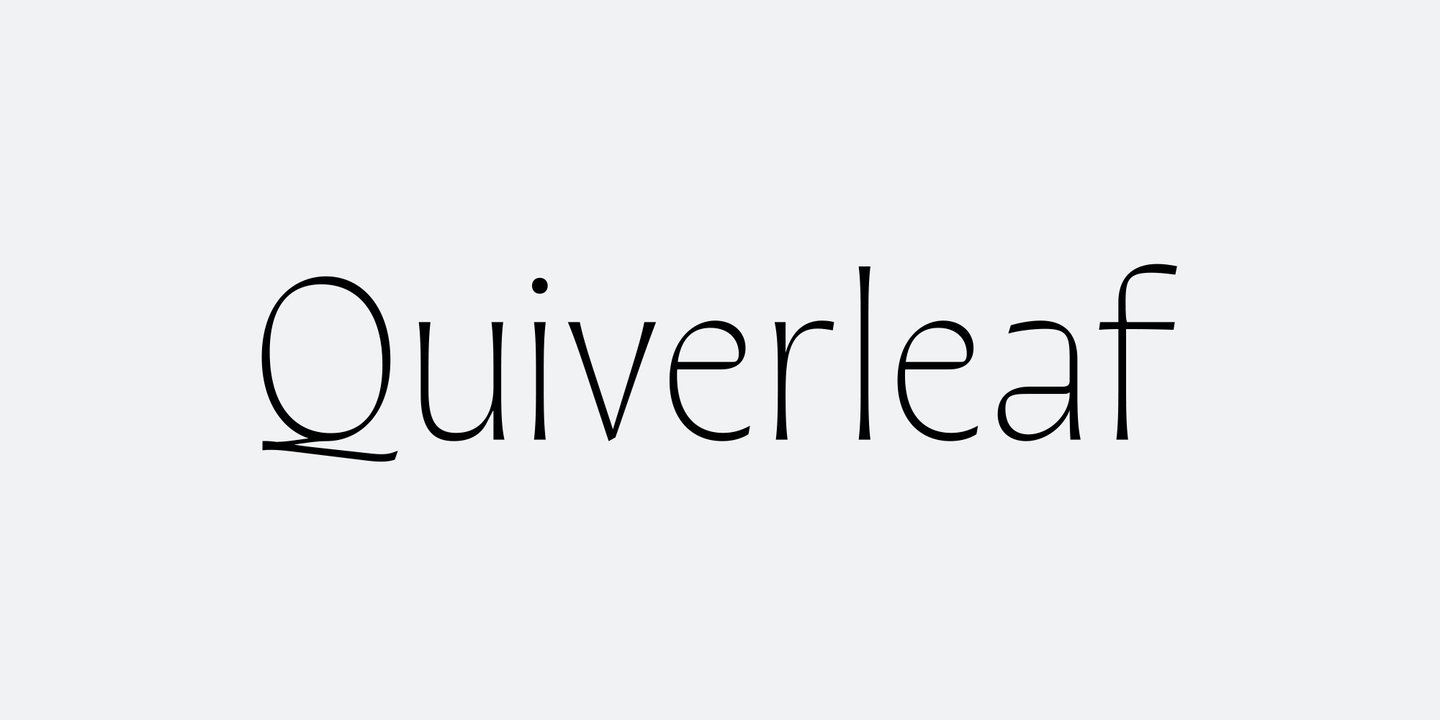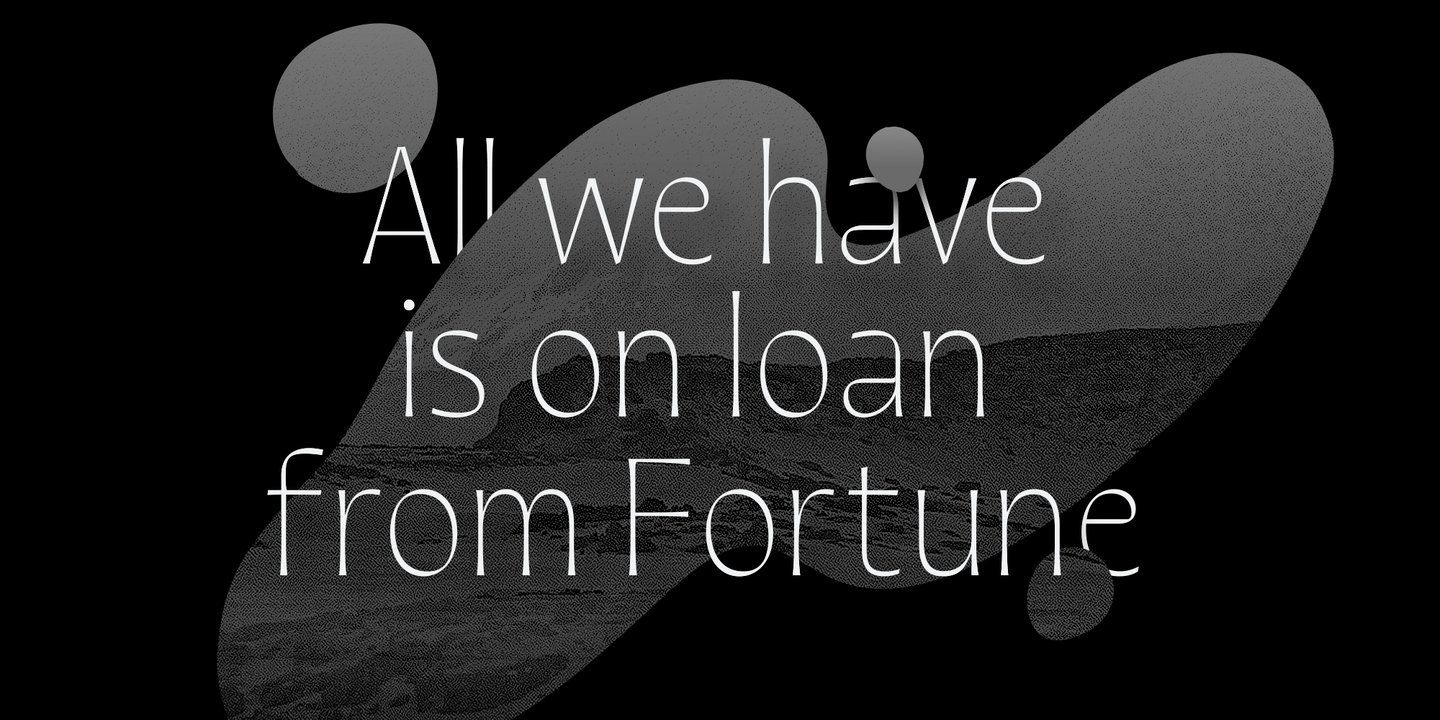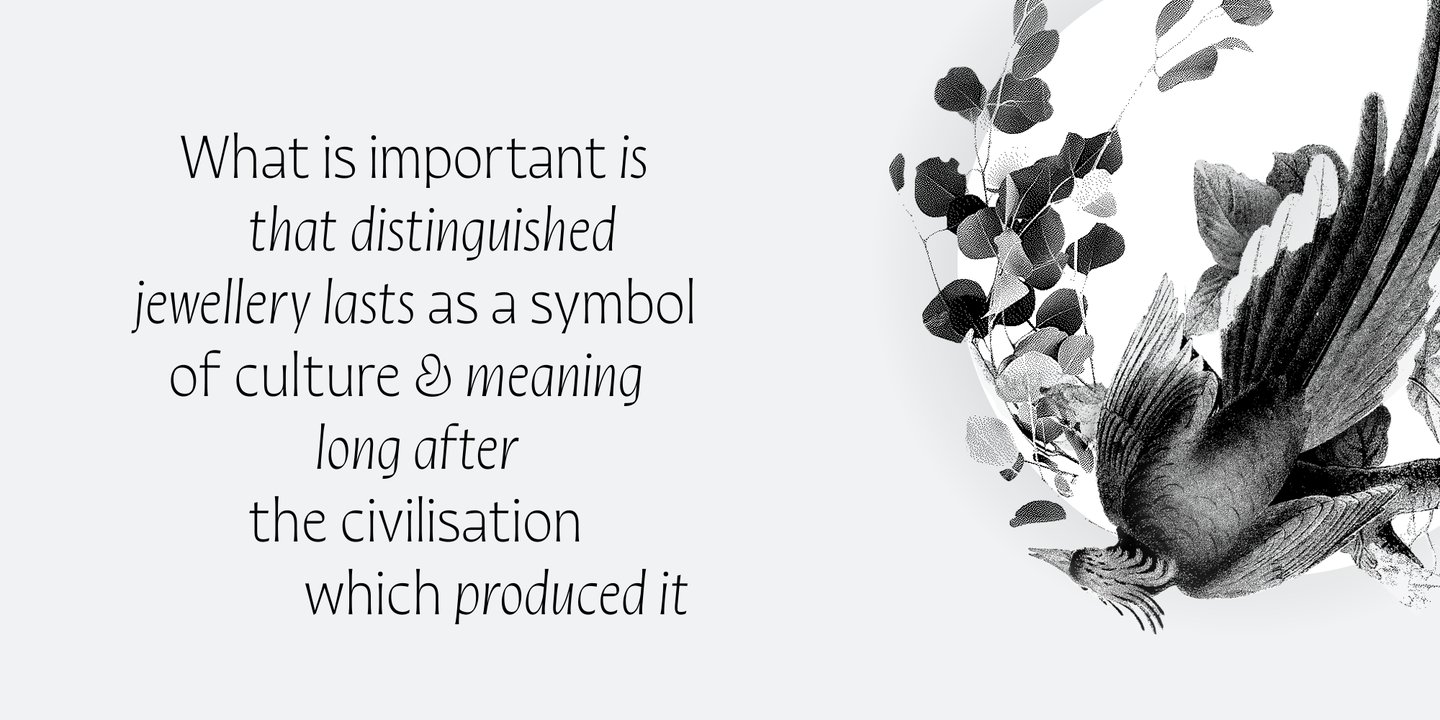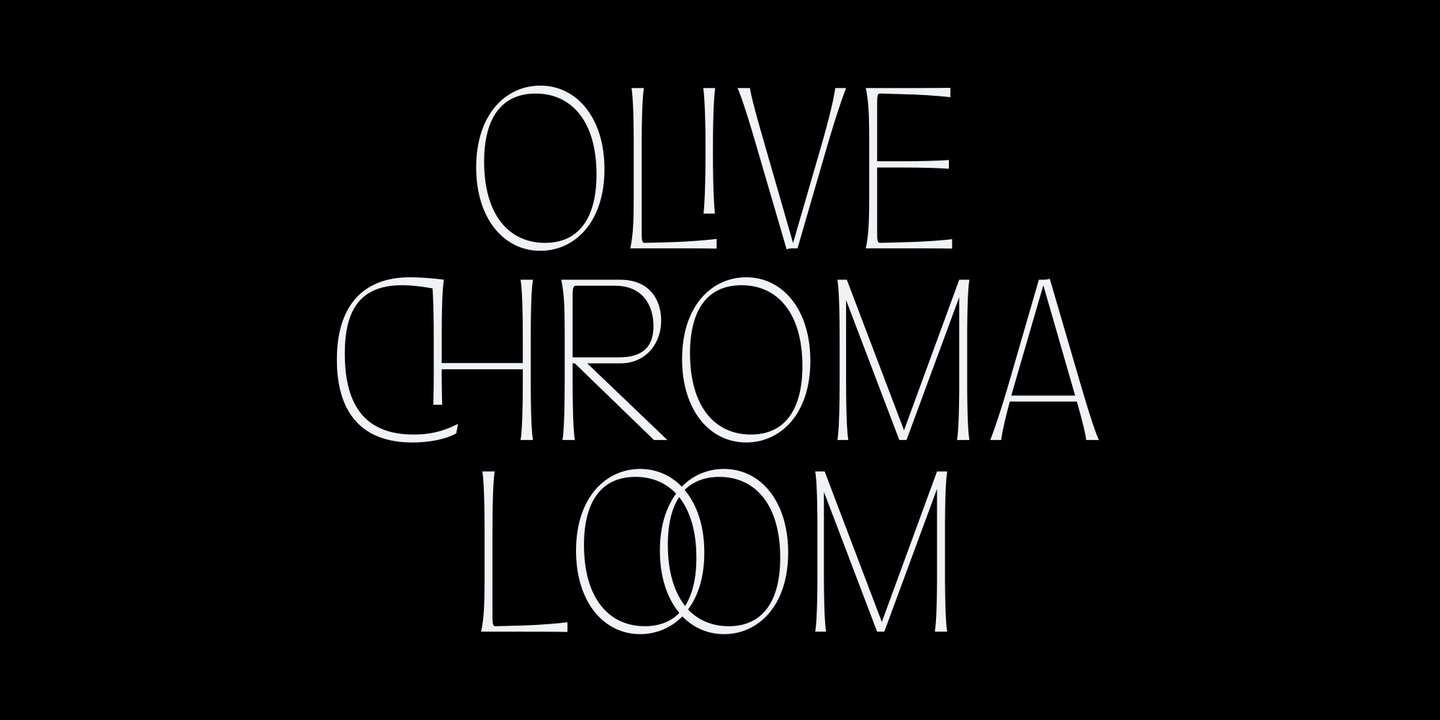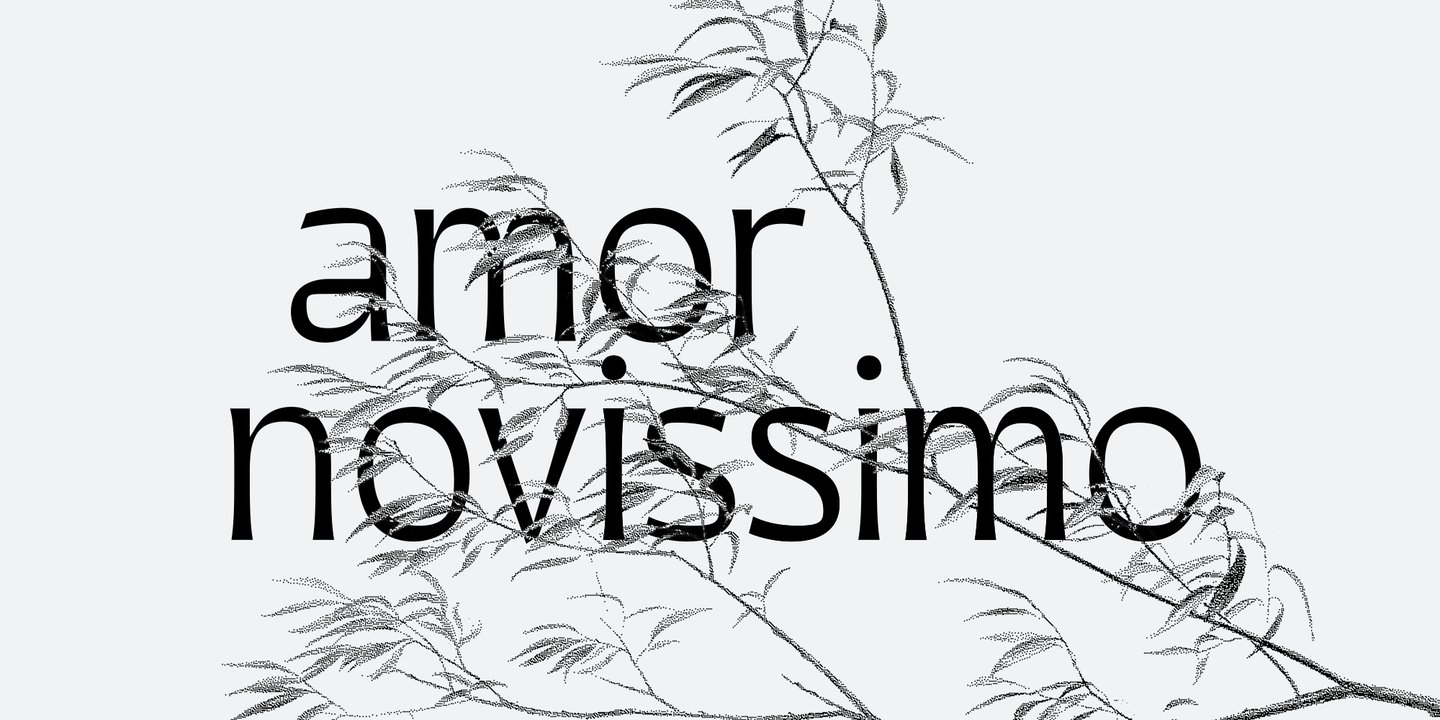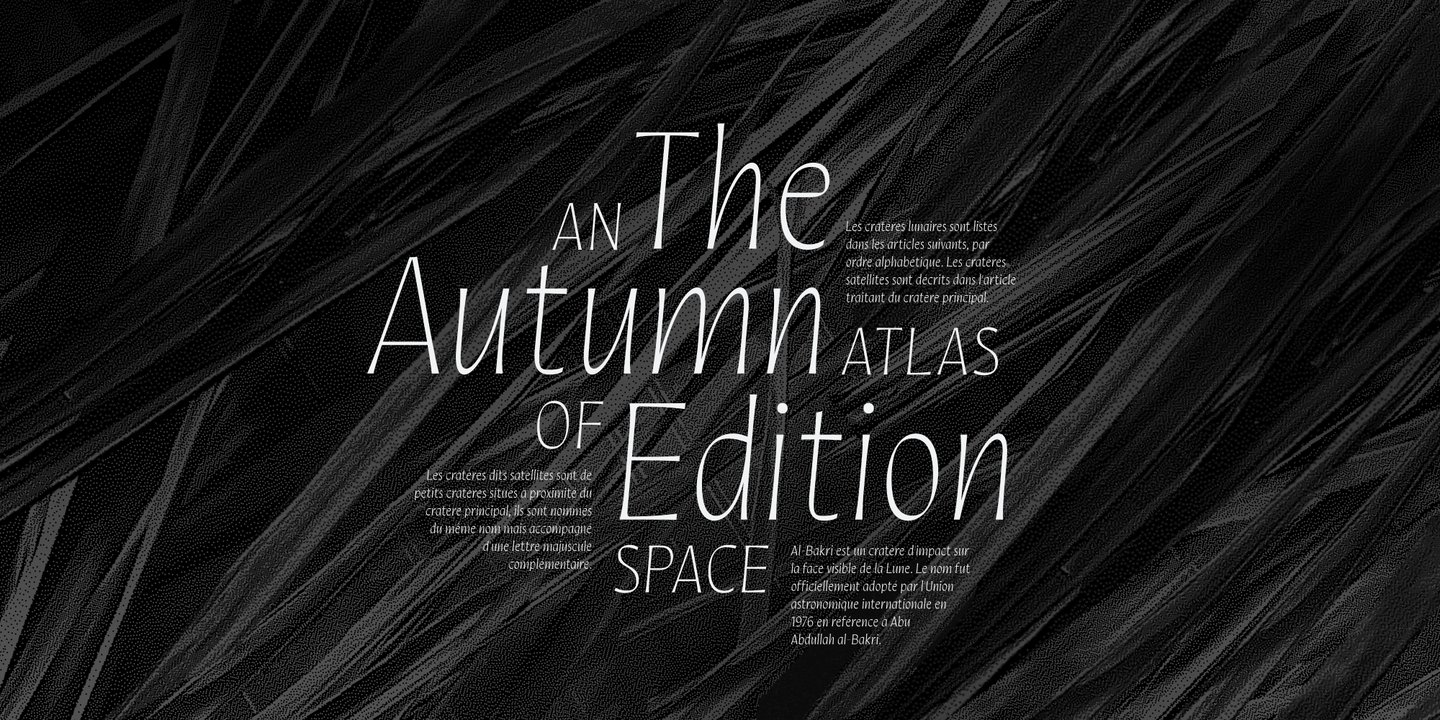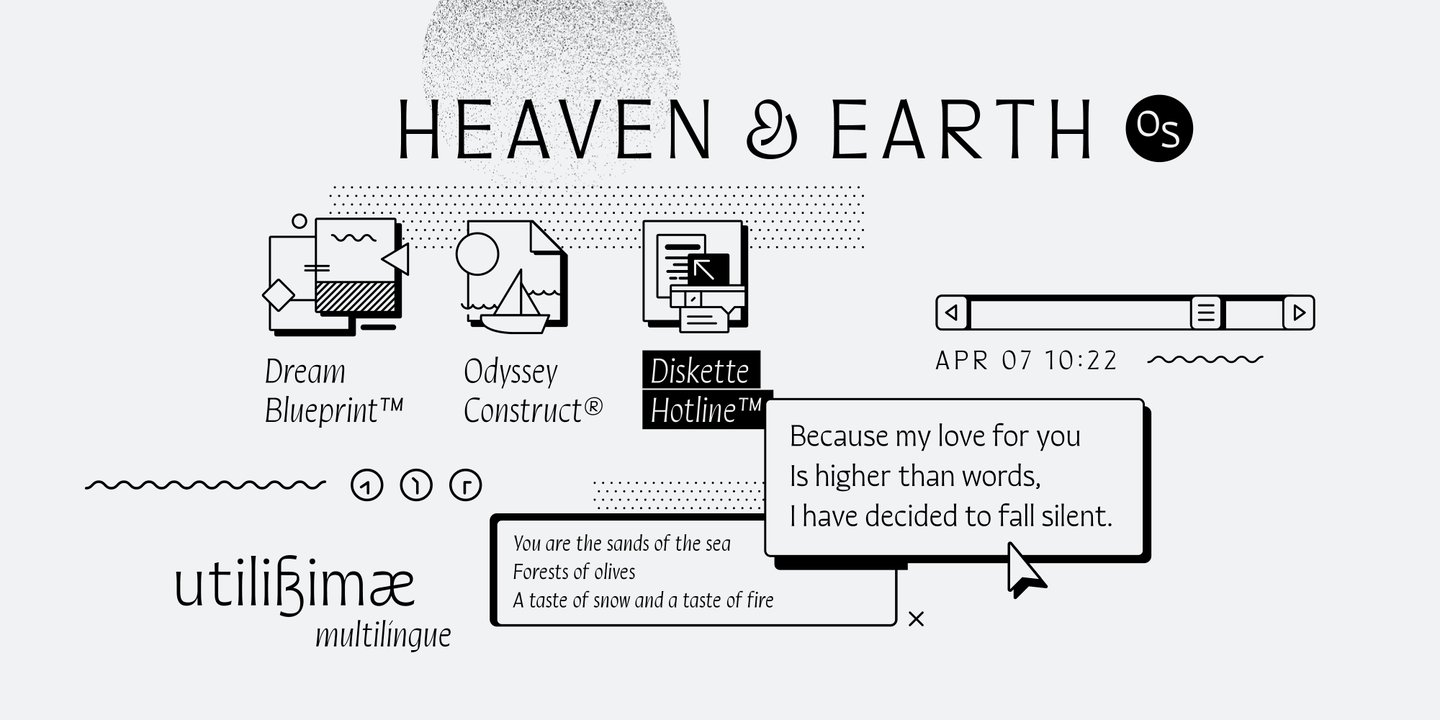
About Quiverleaf CF Font Family Like the graceful movement of a ribbon, Quiverleaf CF glides effortlessly from letter to letter. Five weights – from a delicate, yearning thin to a hearty extra bold – combine with striking italics and wide language support for a well-rounded and expressive typeface. Quiverleaf’s versatile design allows for both beautiful text and airy headlines. Quiverleaf CF pairs well with itself at contrasting sizes and weights;